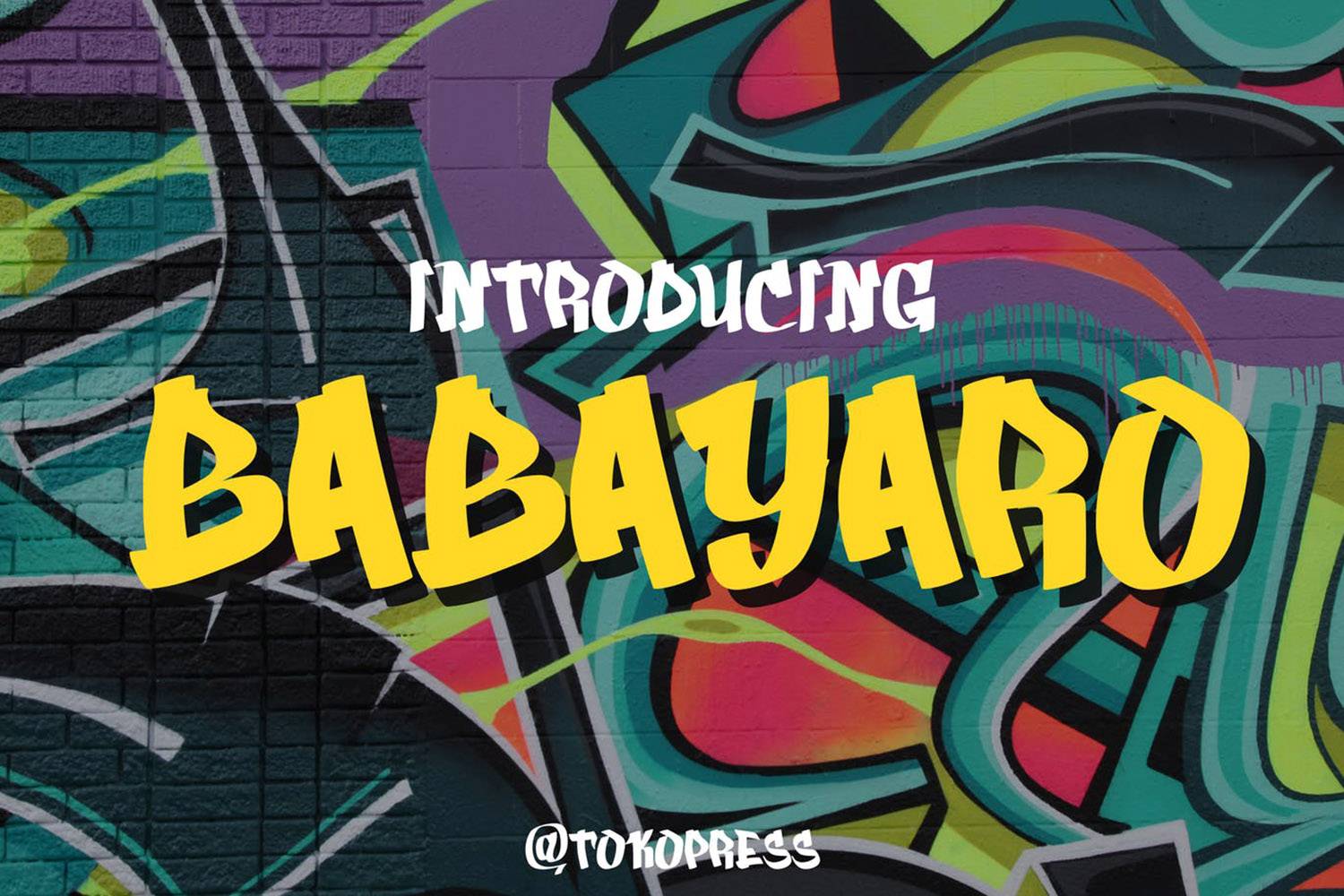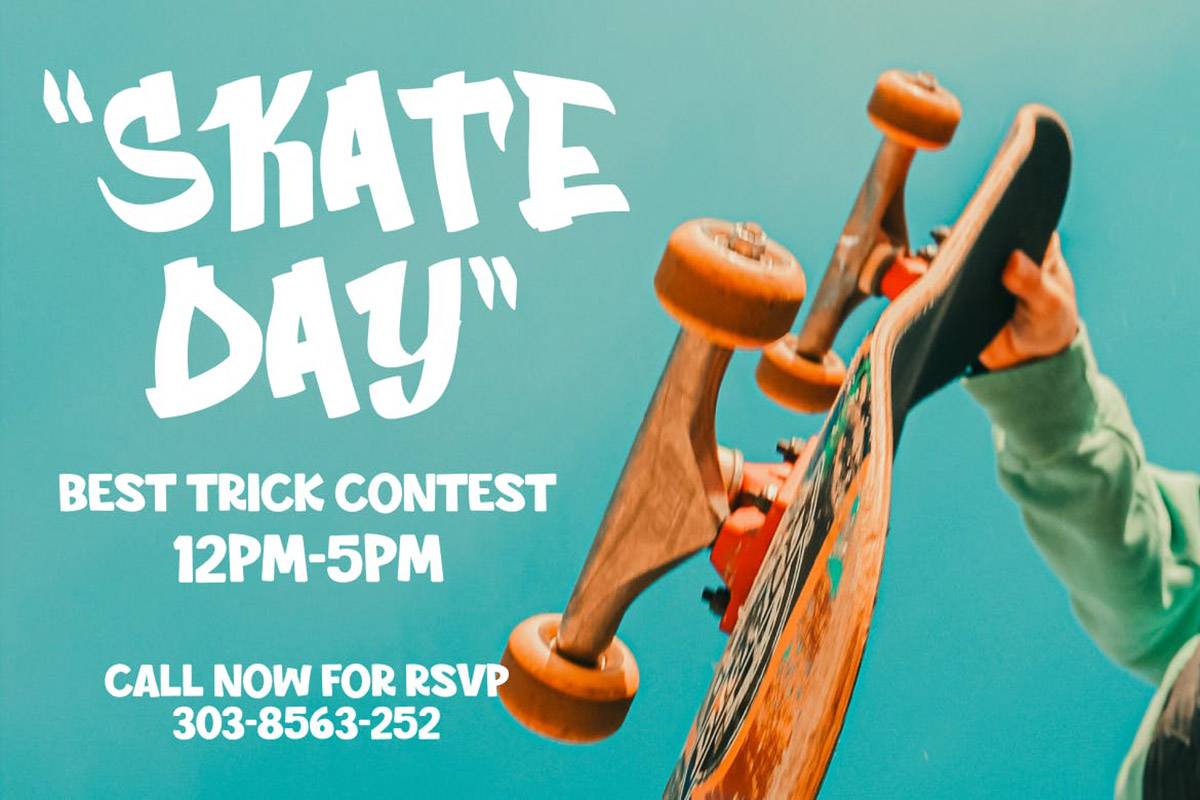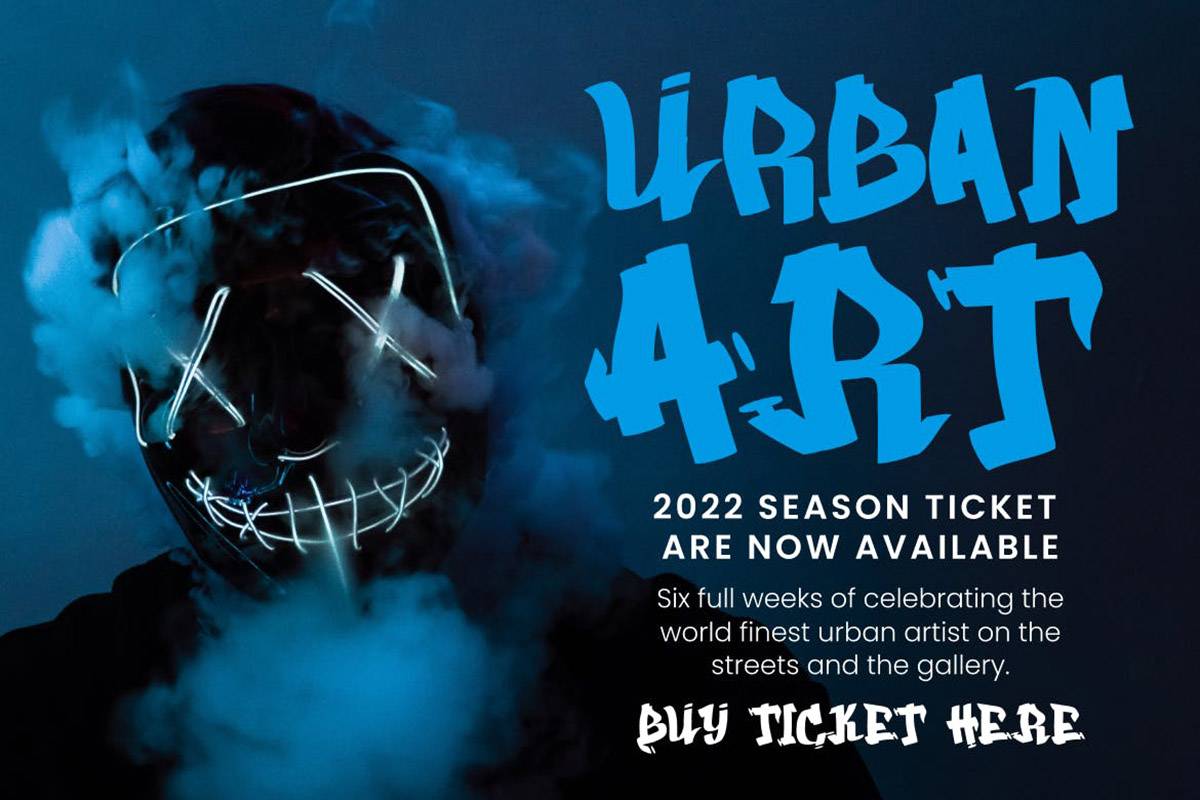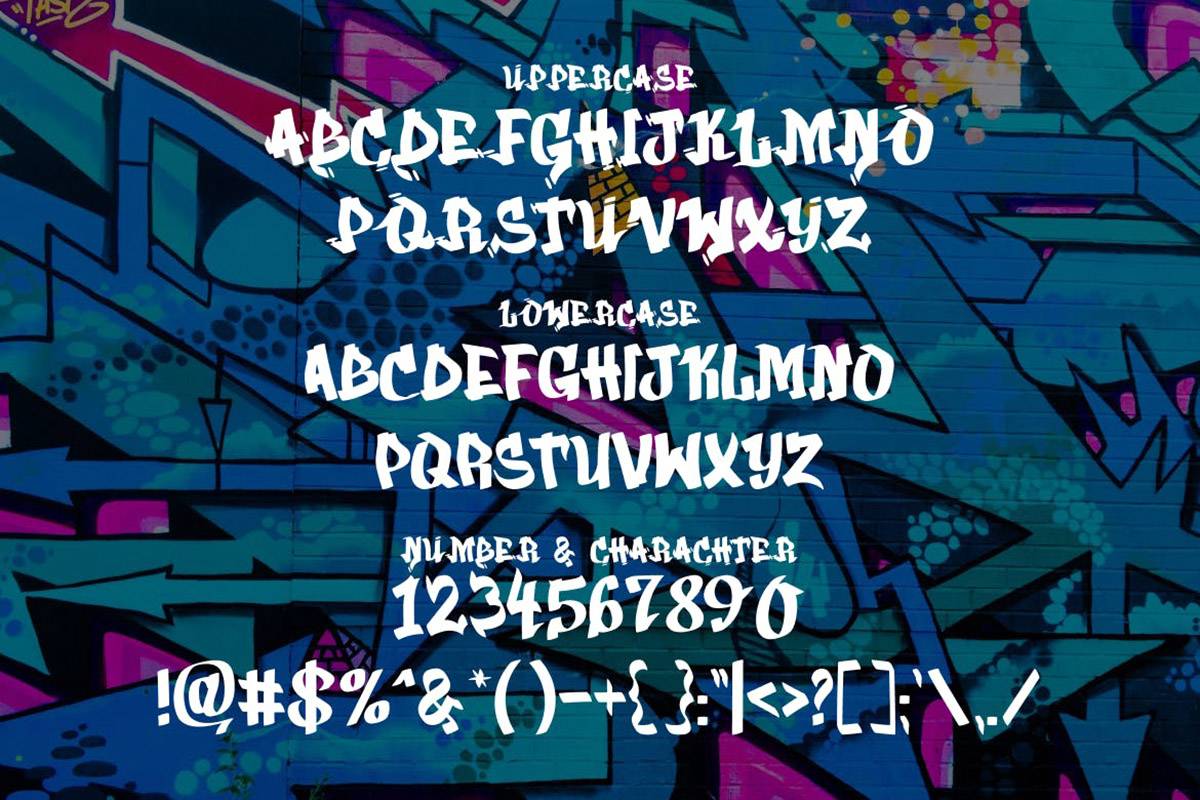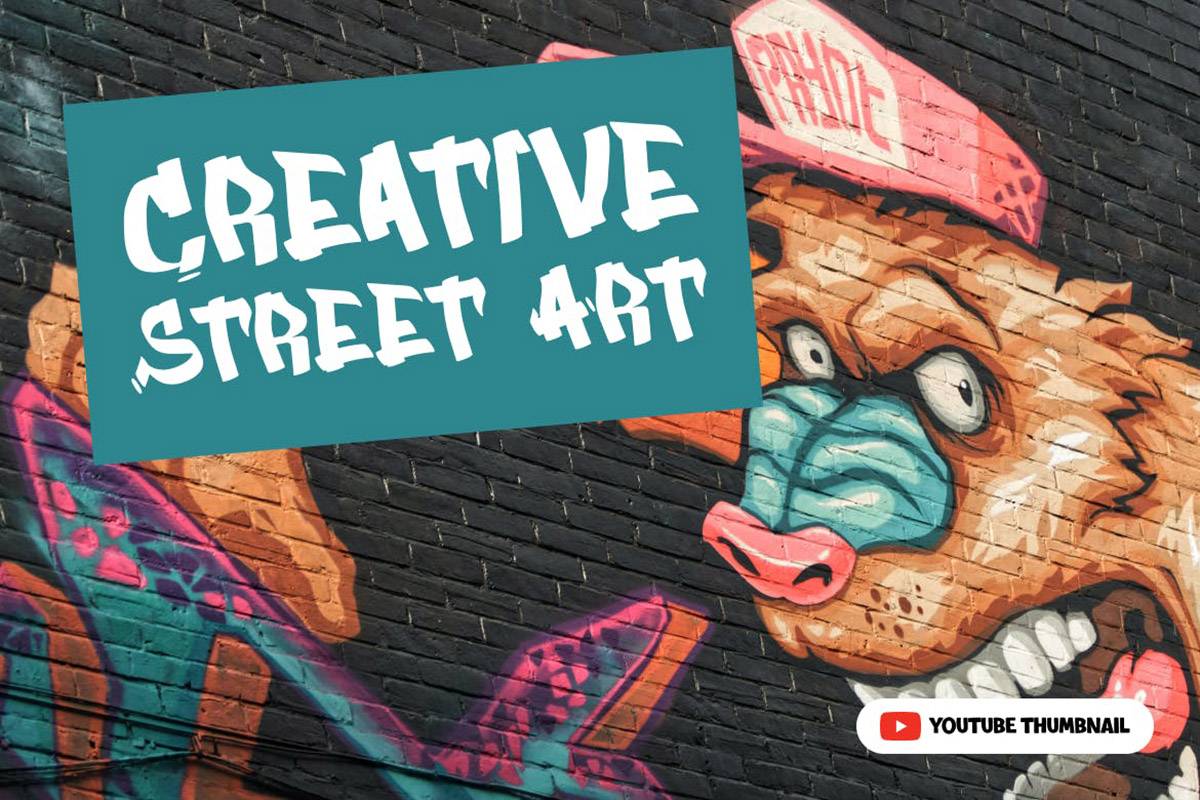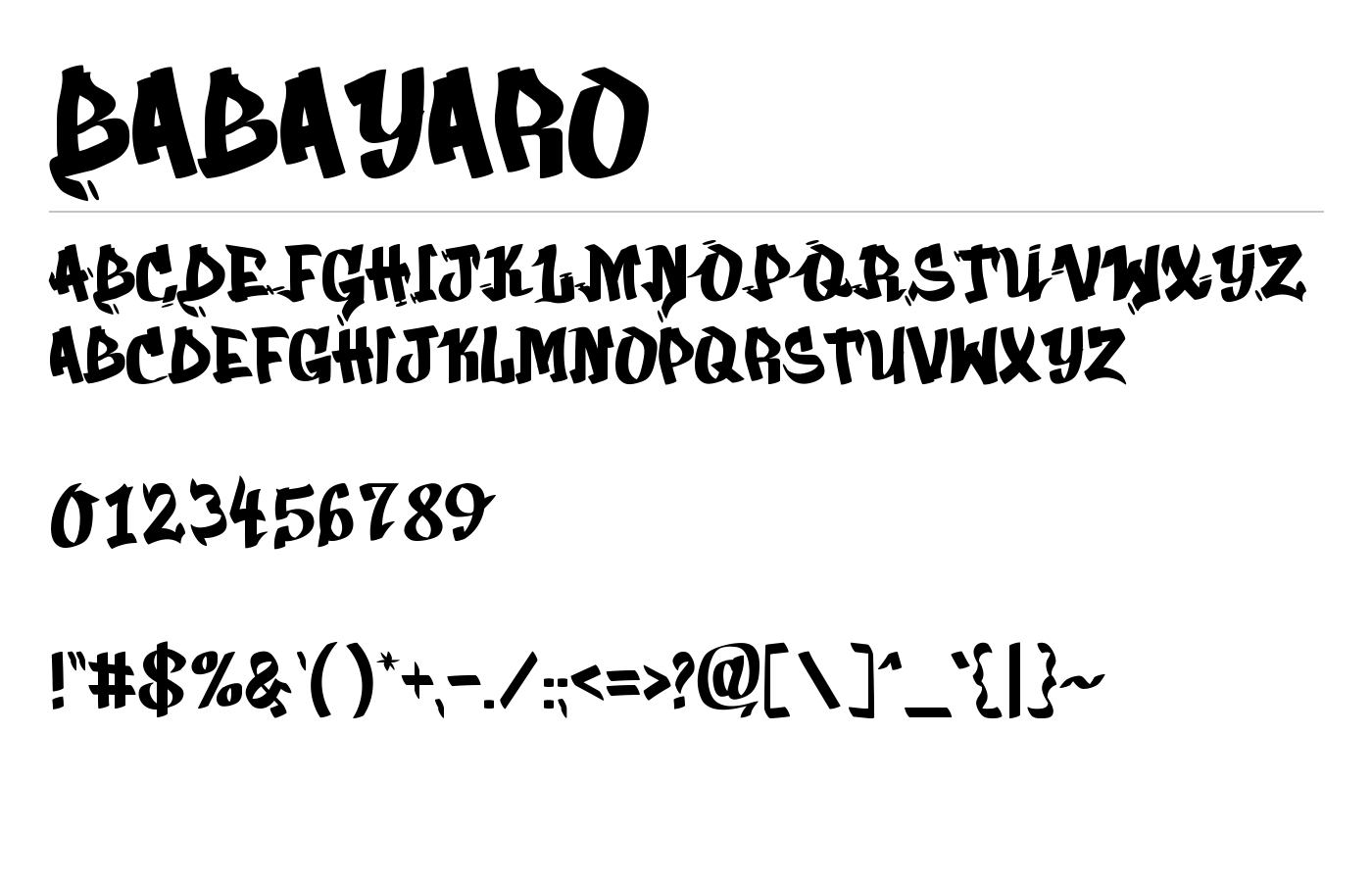
Babayaro is a bold and stylized display font with a playful, graffiti-inspired flair, featuring strong, irregular strokes and sharp angles that bring an energetic, urban edge to its letters. Its uppercase-only design and chunky, dynamic forms make it ideal for eye-catching headlines, logos, and poster designs where a lively and informal vibe is desired. This font works best for creative projects seeking a distinctive and street-smart personality.
Babayaro Font
About Babayaro Font
| Font family | Babayaro Font |
| Designer | Tokopress Team |